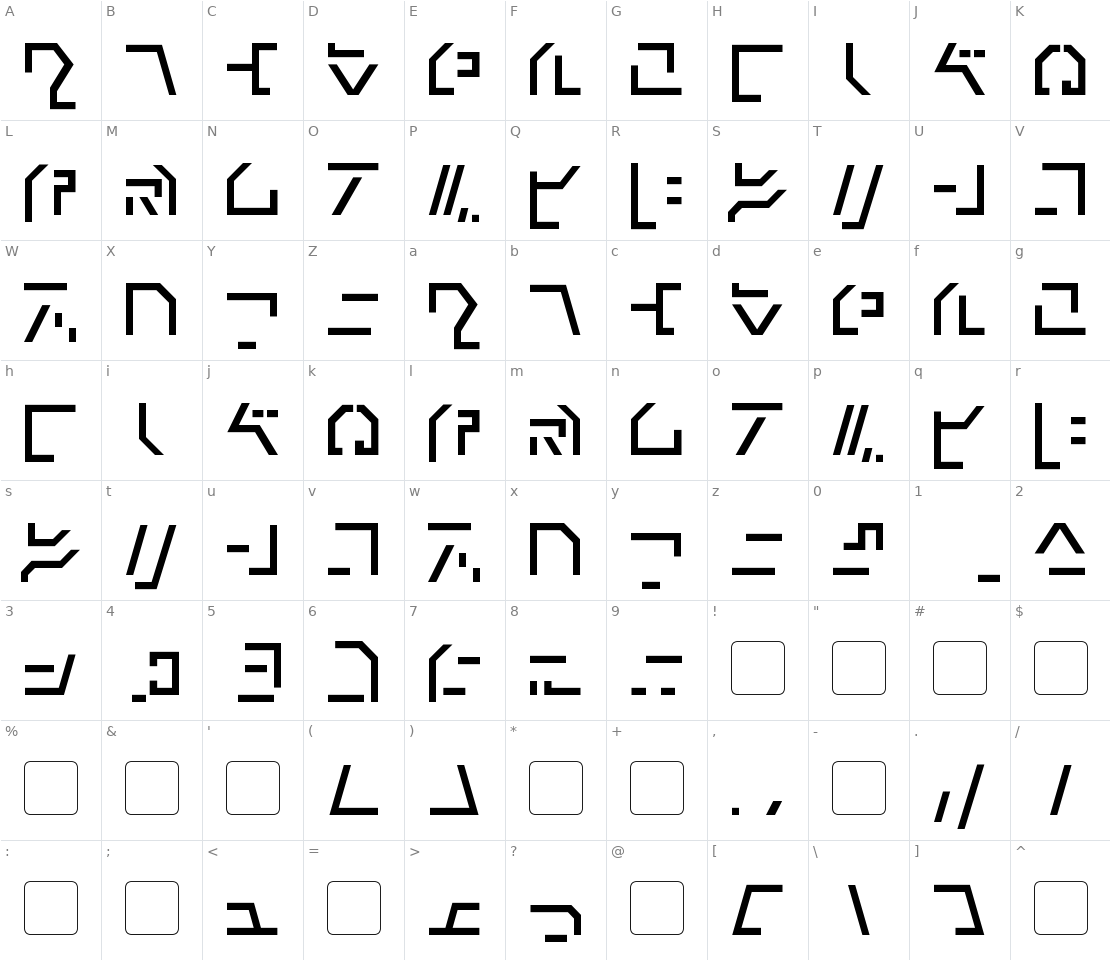
Modern Cybertronic
Modern Cybertronic is a bold, angular display face from Pixel Sagas with sharp geometric letterforms that feel like they belong on the hull of a starship or the interface of some alien operating system. The cyber-influenced shapes lean heavily into futuristic territory, with hard edges and unconventional angles that make each character feel engineered rather than drawn. Best reserved for headlines, title screens, and tech-themed branding where you want type that looks like it arrived from somewhere else.